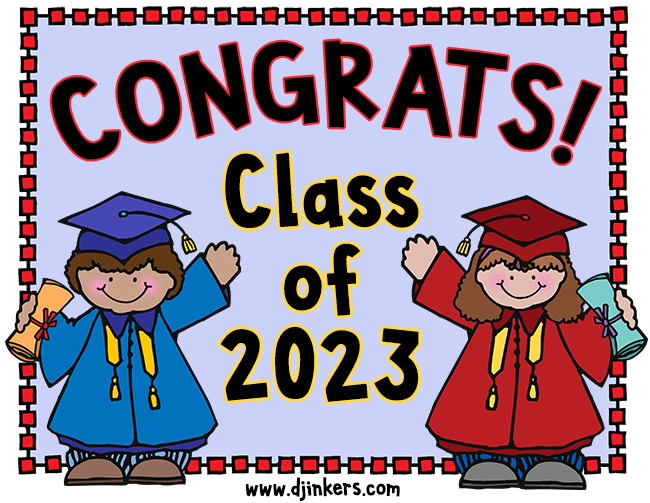
Ready to type-up a smile? Make your text stand out with this bold, fun font by DJ Inkers, sure to be Elementary in your collection! Excellent for teachers, project titles and headlines, parties, posters, fliers and more. Download yours today!